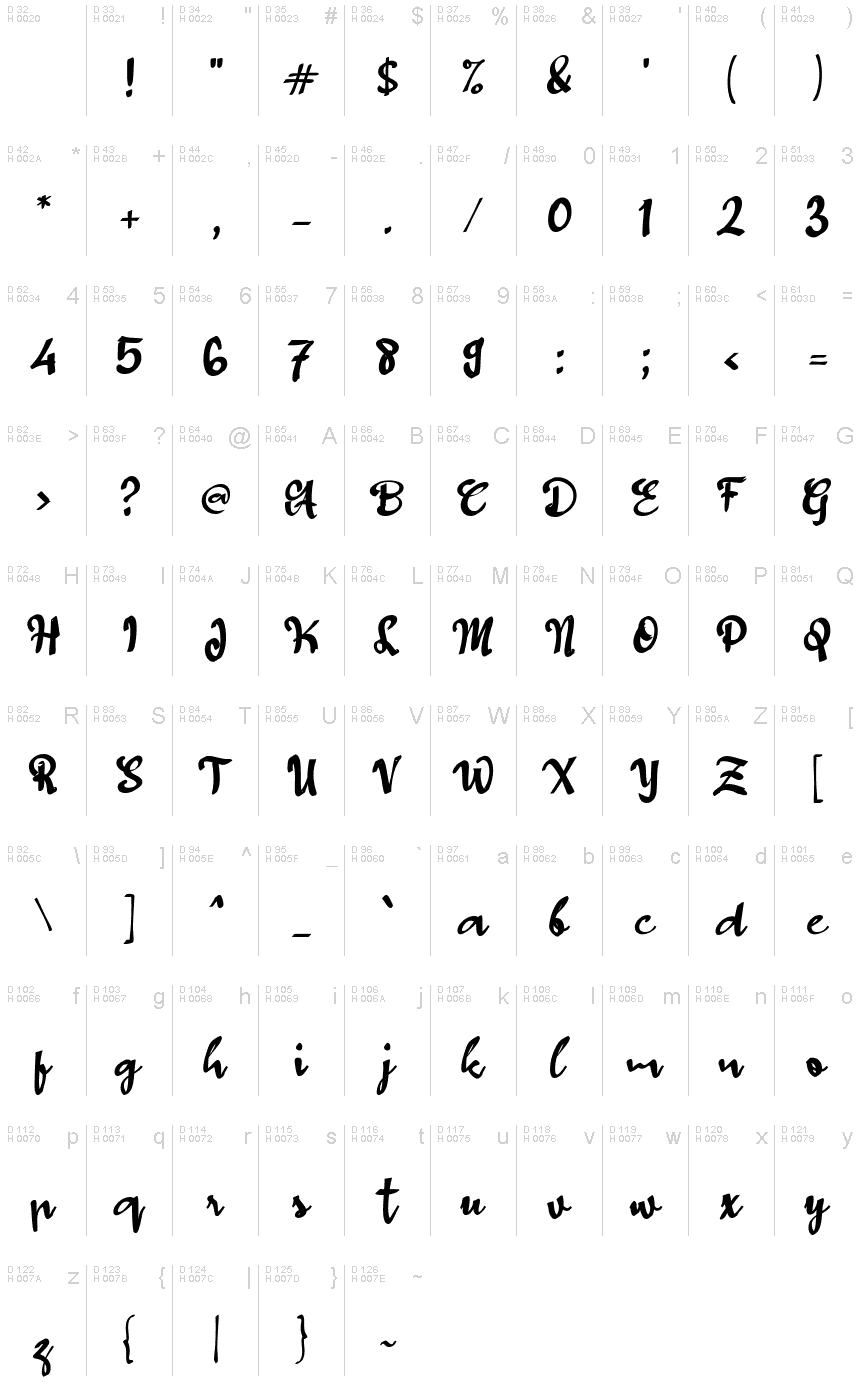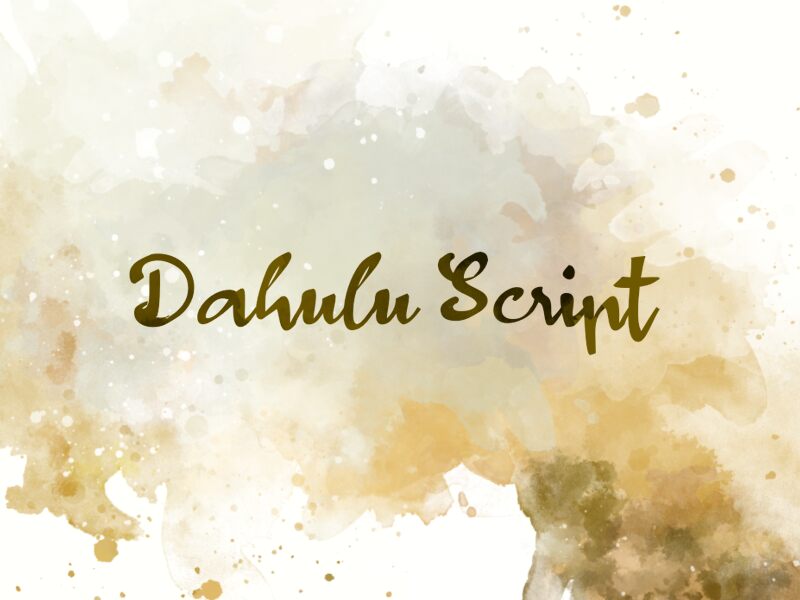
Dahulu Script
Introducing Dahulu Script, a beautiful handwritten font designed by Wahyu Eka Prasetya. This font is perfect for adding a personal touch to any project, from posters and cards to logos and websites. Its organic look and feel will make your designs stand out!